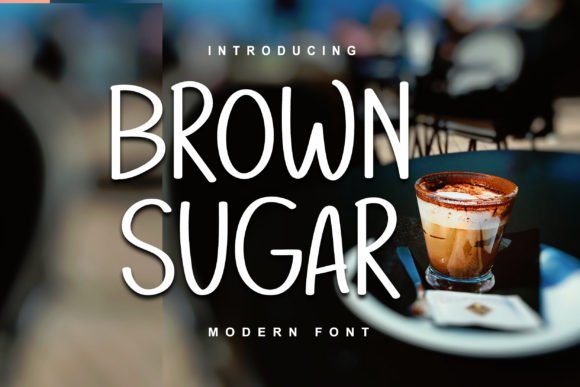
The Sweetest Touch: Brown Sugar Font
Have you ever stumbled upon a quote or a phrase on a chalkboard that instantly captured your heart? Maybe it was a motivational quote on a school’s bulletin board, or a sweet message from a loved one on a kitchen chalkboard. Whatever it was, I’m sure you’ll agree that there’s something special about handwritten fonts that add a personal touch to our designs.
That’s where the Brown Sugar Font comes in – a cute and simple lettered handwritten font that’s perfect for all your chalkboard quotes or teaching material needs. Its authentic look will add a realistic feel to your designs, making them stand out from the crowd. Whether you’re a designer, educator, or simply a creative enthusiast, the Brown Sugar Font is a valuable tool to have in your arsenal.
Brown Sugar Font Key Features
- Font Family: Brown Sugar is a sans-serif font family designed to evoke the warmth and comfort of brown sugar.
- Unique Characteristics: Features a unique, hand-crafted feel with subtle imperfections and texture, giving it a distinctive and organic look.
Brown Sugar Font Review
Overall, I think the Brown Sugar Font is a nice addition to any design project. It’s a beautiful, vintage-inspired font that can add a touch of elegance to your work. ✨
- The font’s unique, hand-drawn feel is really appealing.
- It has a wide range of weights and styles, making it easy to find the perfect fit for your project.
- The font is highly legible, even at smaller font sizes.
However, there are a few limitations to keep in mind. ⚠️
- The font may not be the best choice for projects that require a lot of technical or scientific text, as it can be difficult to read in those contexts.
- The font’s vintage feel may not be suitable for all types of projects, such as modern or minimalist designs.
Overall, I think the Brown Sugar Font is a great choice for designers who are looking for a unique, elegant font for their projects. With its wide range of styles and high legibility, it’s a versatile font that can be used in a variety of contexts.
The Brown Sugar Font is ideal for:
- Food-related designs (e.g. recipe cards, food blogs, etc.)
- Wedding invitations and decor
- Home decor and interior design
- Any design project that requires a warm and inviting tone
Tips for Getting the Most Out of Brown Sugar Font
To get the most out of Brown Sugar Font, try the following:
- Pair it with earthy tones and textures to create a cohesive look.
- Use it for headings and titles to add a
Alternatives to Brown Sugar Font
Pacifico is a beautiful, elegant script font that resembles handwritten text. It’s perfect for creating a warm and inviting atmosphere in designs, especially for weddings, invitations, and greeting cards. Compared to Brown Sugar Font, Pacifico is more cursive and has a more vintage feel.
Great Vibes is a modern, elegant script font that’s ideal for designs that require a touch of sophistication and elegance. It’s perfect for creating logos, branding materials, and advertising campaigns. Compared to Brown Sugar Font, Great Vibes is more refined and has a more contemporary feel.
Carolyna Pro is a luxurious, elegant script font that’s perfect for high-end designs, such as luxury branding, fashion, and beauty campaigns. It’s also great for creating invitations, wedding stationery, and other special occasion materials. Compared to Brown Sugar Font, Carolyna Pro is more refined and has a more luxurious feel.